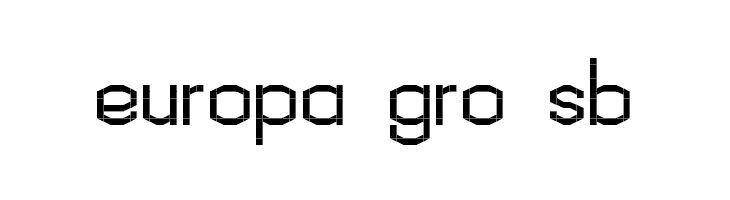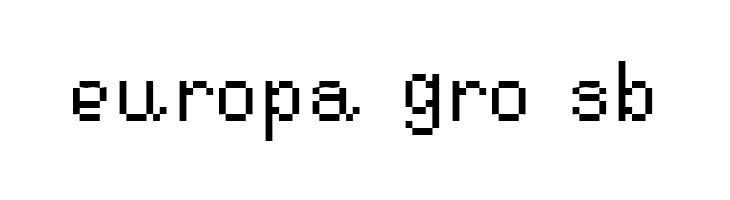
( Magang Letterhend - www.letterhend.com )
A smooth, flowing script font with a natural handwriting style.
( Melissa M )
A playful, casual handwritten font with rounded, smooth letterforms.
( Michael Cortez - www.facebook.com/schrotte )
A geometric, pixelated font with a modern, tech-inspired design.
( RaseOne Full Time Artists - www.graffitifonts.com )
A structured, easy-to-read font ideal for educational use, featuring lined guidance for handwriting practice.
( Rob Ashcroft - www.facebook.com/pages/Teacher-Resources/130918280284678 )
A casual, handwritten-style font with a school-inspired aesthetic.
( Rob Ashcroft - www.facebook.com/pages/Teacher-Resources/130918280284678 )
A playful, handwritten-style font with bold outlines and dynamic strokes.
( RynnieJinYeon )
A pixelated, monospaced font with a retro digital aesthetic.
( Sebastian - greekhouseoffonts.com )
A bold, double-outline font inspired by traditional Greek lettering, ideal for decorative and impactful designs.
( Sharkshock - Dennis Ludlow - www.sharkshock.net )
A bold, condensed font with strong, impactful uppercase letters.
( Zach Dunton - DuntonPhoto.com )
A dynamic, expressive handwritten font with fluid strokes and bold characters.